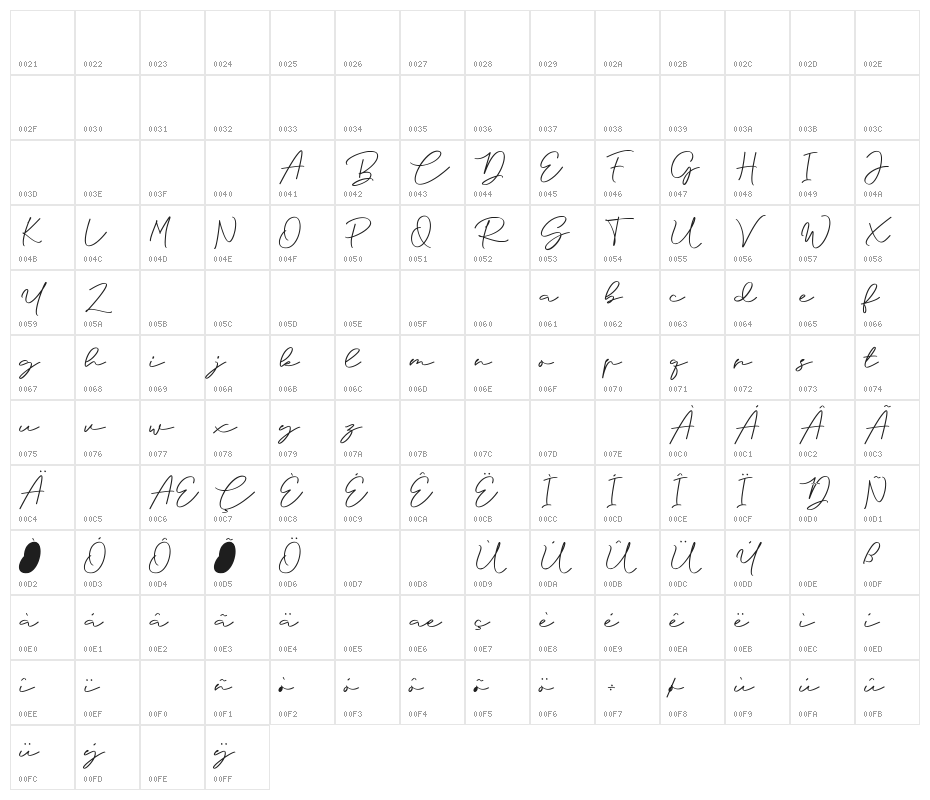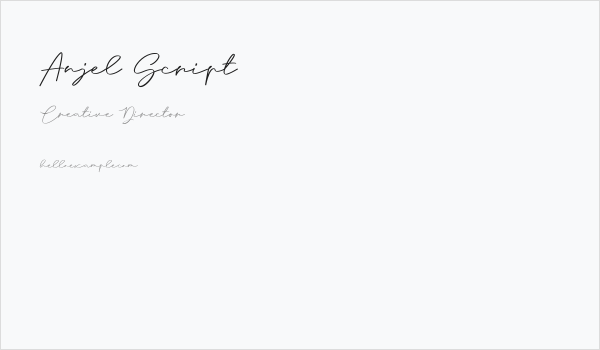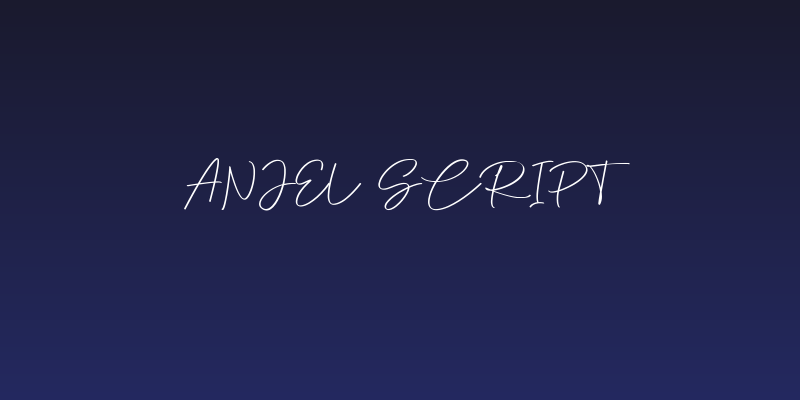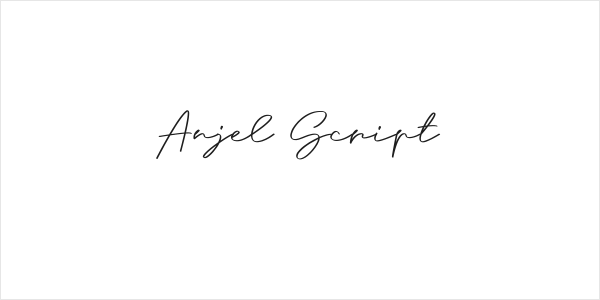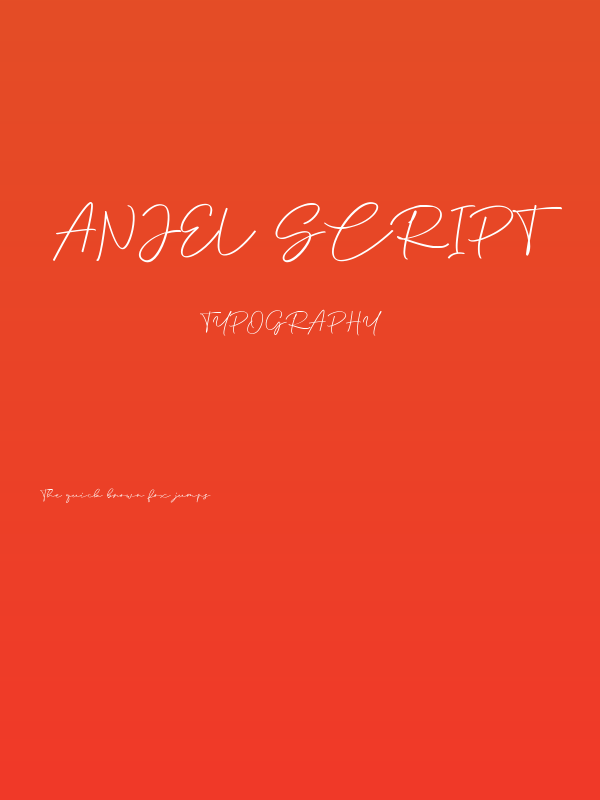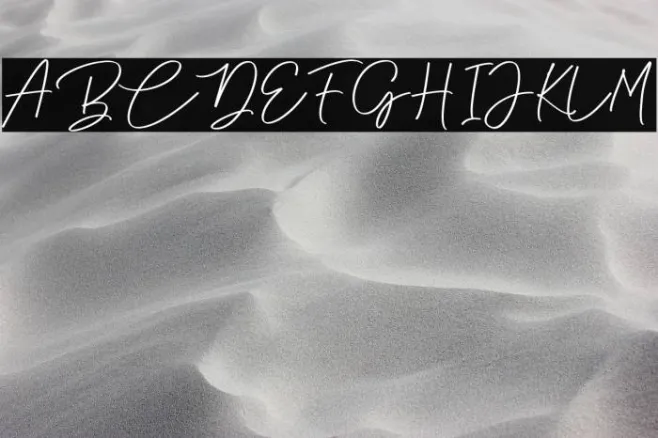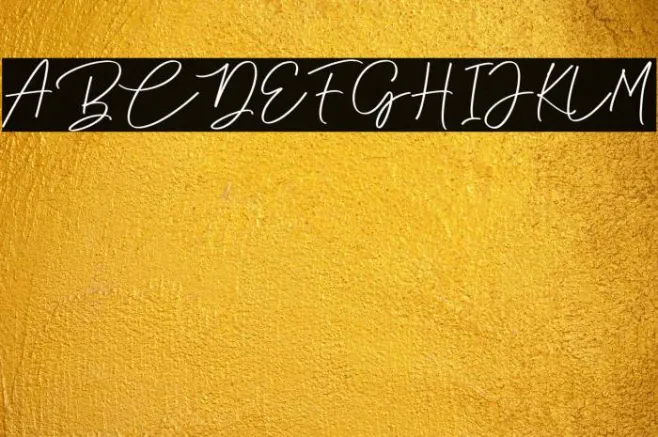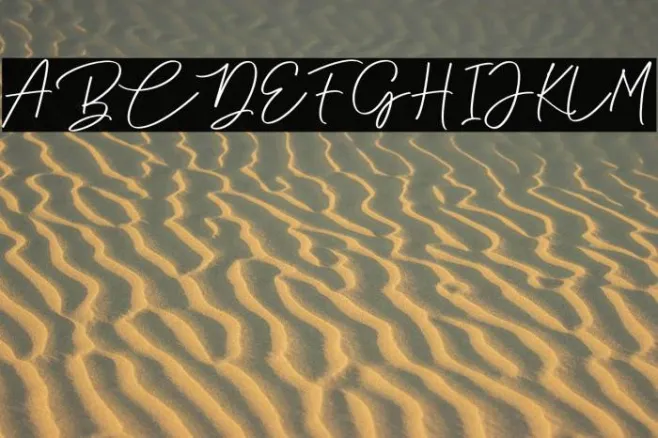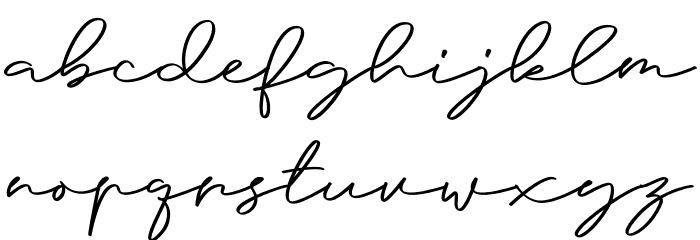
Anjel Script Font
Anjel Script Description
This elegant script font features fluid, cursive strokes that mimic the natural flow of handwriting. The uppercase letters are slightly more ornate, with sweeping curves and loops that add a touch of sophistication. The lowercase letters maintain a consistent style, with smooth connections between each character, enhancing readability while preserving the script's decorative nature. The overall appearance is graceful and refined, making it suitable for projects that require a personal or artistic touch. The font's delicate lines and balanced proportions give it a timeless appeal, perfect for invitations, branding, and other creative endeavors.
| Use Case | Invitations, Branding, Artistic projects |
| Proposed Projects | Ideal for wedding invitations, personal branding, greeting cards, and artistic projects. |